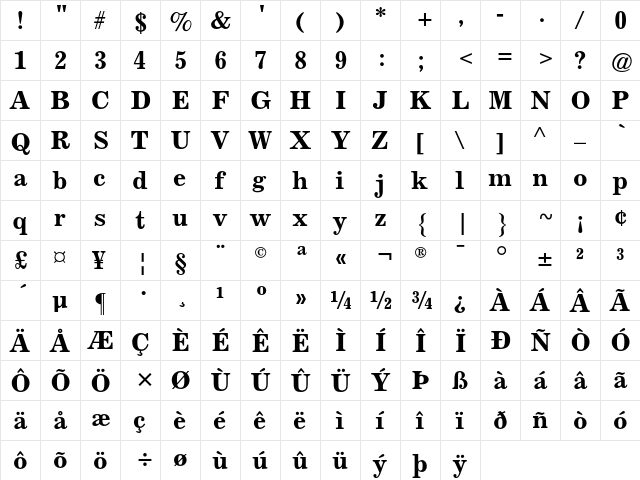
News AT Number Fourteen Bold
Design Context for News AT Number Fourteen Typeface
News AT Number Fourteen takes a measured approach to typography — its balanced proportions and neutral character make it a reliable workhorse for both digital and print work. Its bold stroke weight gives it real presence on the page.